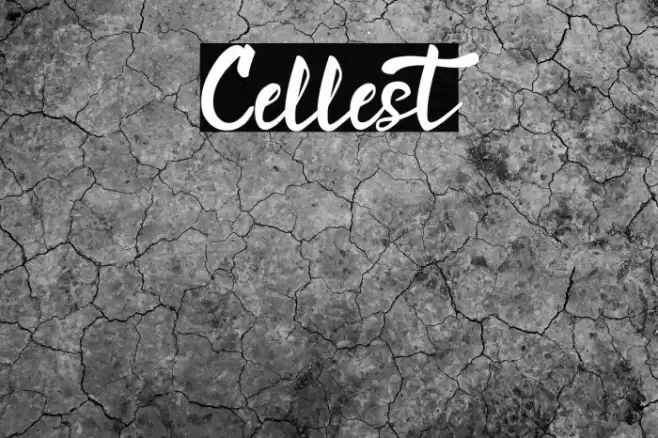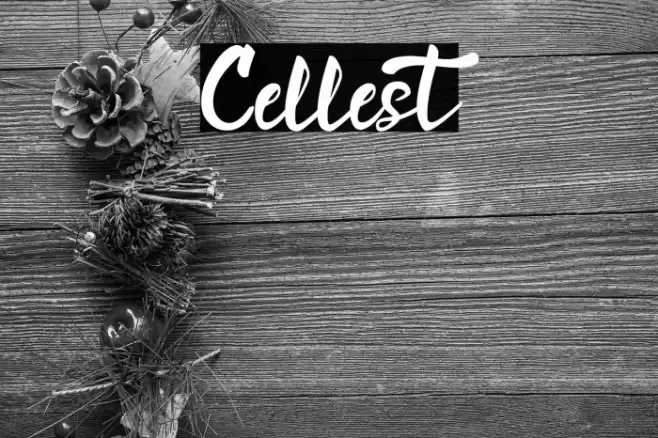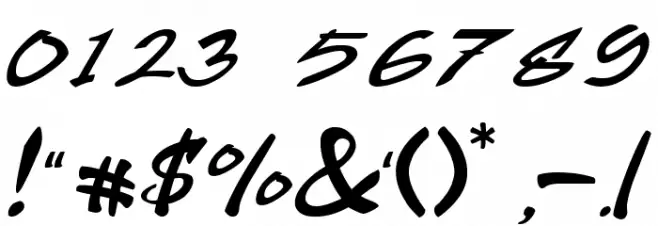
Cellest Font
Cellest Description
This font features a bold and expressive script style with a flowing, cursive design. The uppercase letters are characterized by dramatic flourishes and loops, giving them a dynamic and artistic appearance. The lowercase letters maintain a consistent flow, with smooth curves and elegant connections between characters. The numerals are equally stylized, with a playful yet sophisticated look. Special characters are integrated seamlessly, maintaining the overall aesthetic. This font exudes a sense of creativity and flair, making it ideal for projects that require a personal touch.
A bold, expressive script font with flowing, cursive design from Regular fonts.
- Proposed Projects: Ideal for wedding invitations, greeting cards, branding, and artistic projects.
- Use Case: Logos, Headlines, Invitations